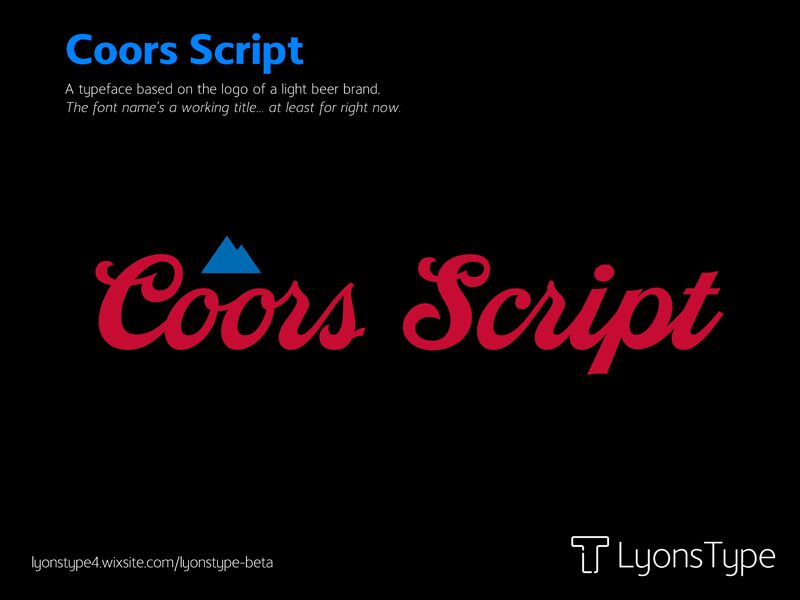
Coors Script, crafted by LyonsType, is a bold and dynamic font that captures the essence of its inspiration-the iconic logo of a renowned light beer brand. With its brush style strokes, Coors Script exudes an informal yet assertive character, making it an ideal choice for projects that require a touch of personality and flair.
The typeface's thick lines and fluid transitions between characters mirror the hand-painted signs of yesteryear, infusing designs with a nostalgic charm. Yet, it remains versatile enough to complement modern aesthetics. Whether it's for branding, packaging design, or promotional materials, Coors Script stands out for its aesthetic appeal that strikes a balance between casual elegance and robust energy.
Its suitability across various creative endeavors-from advertising to graphic tees-makes Coors Script a go-to font for designers looking to inject their work with both warmth and confidence.
The font name's a working title... at least for right now.